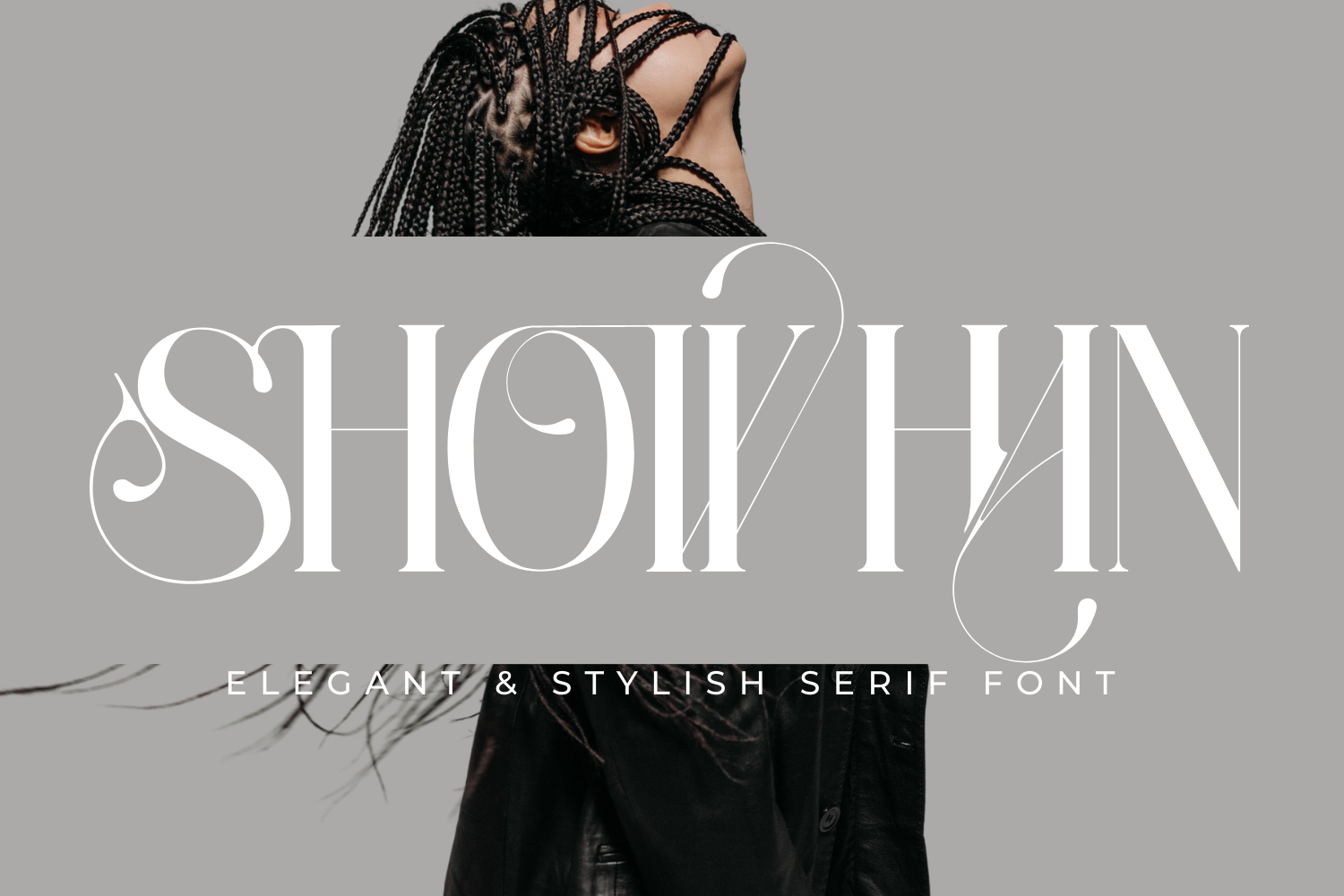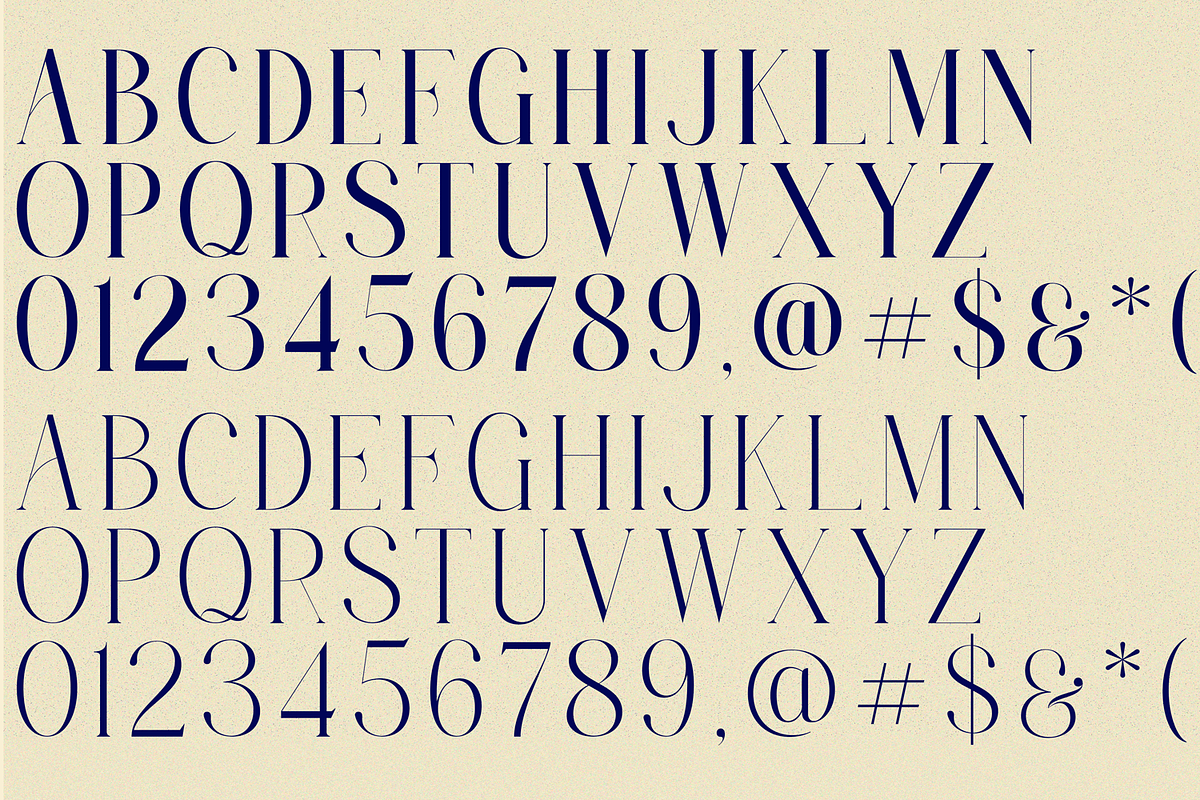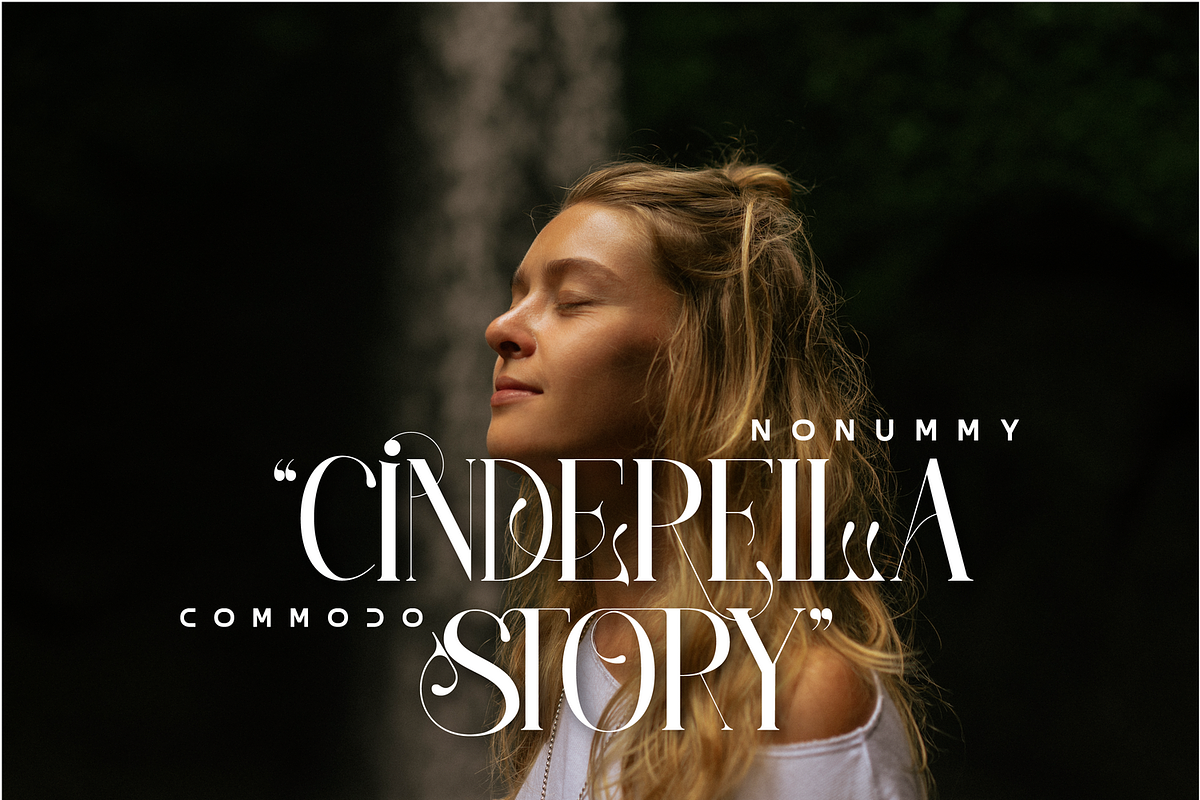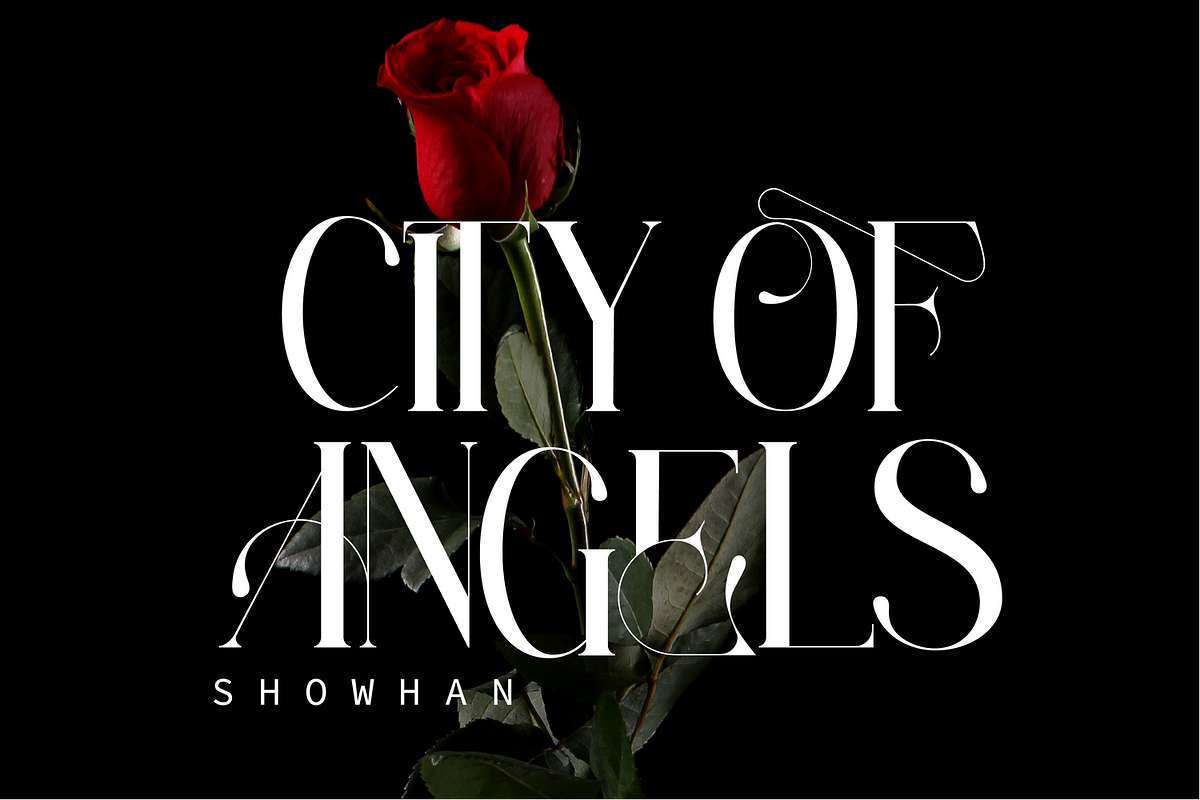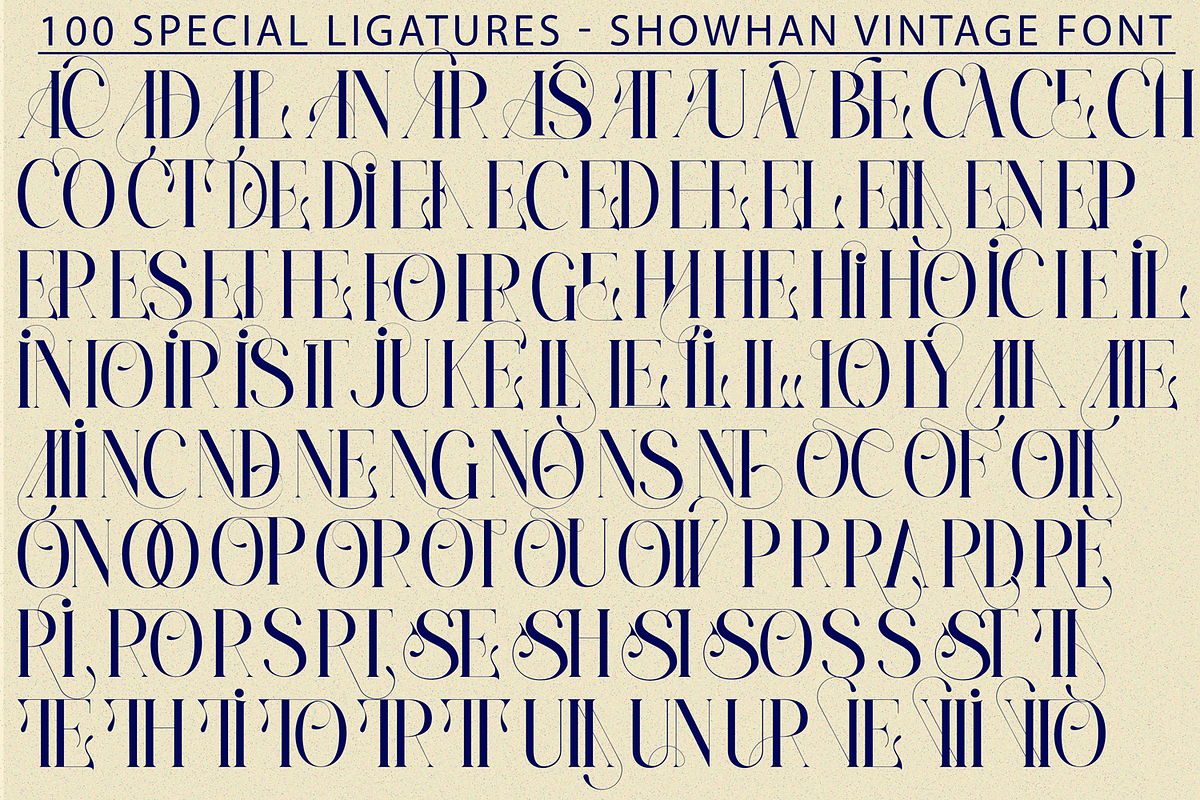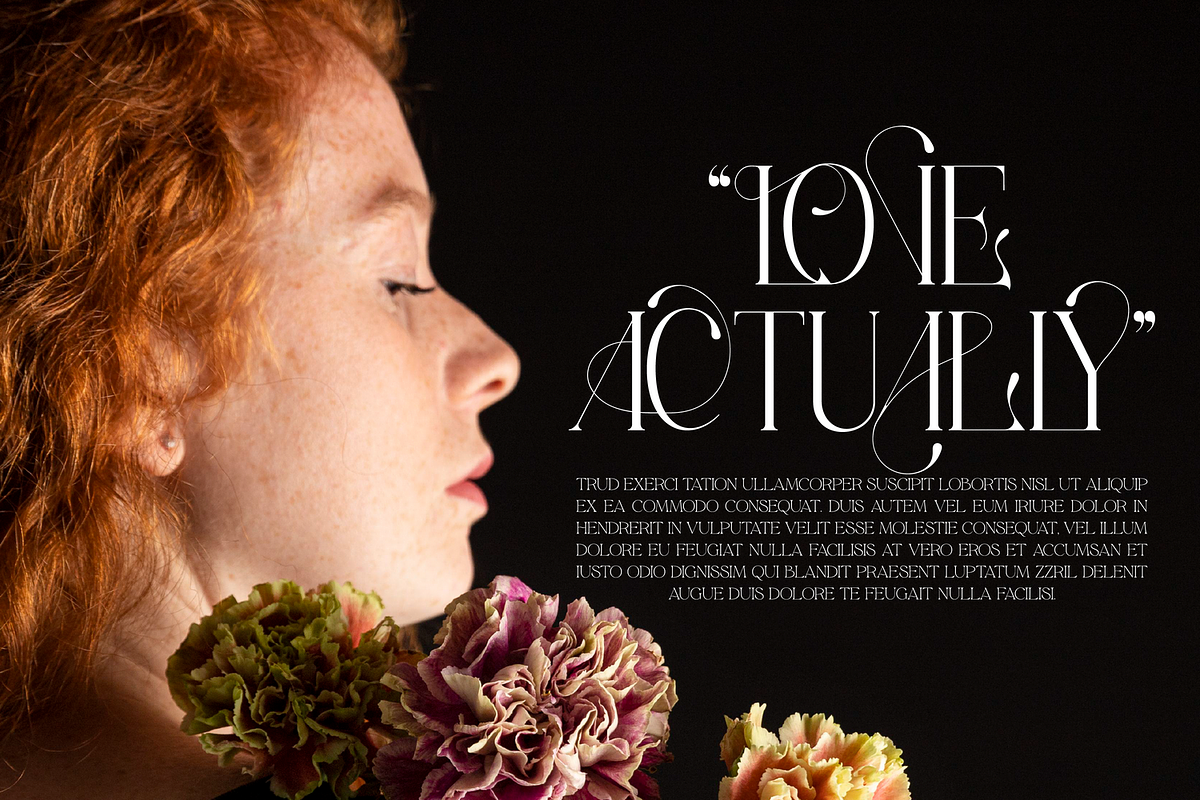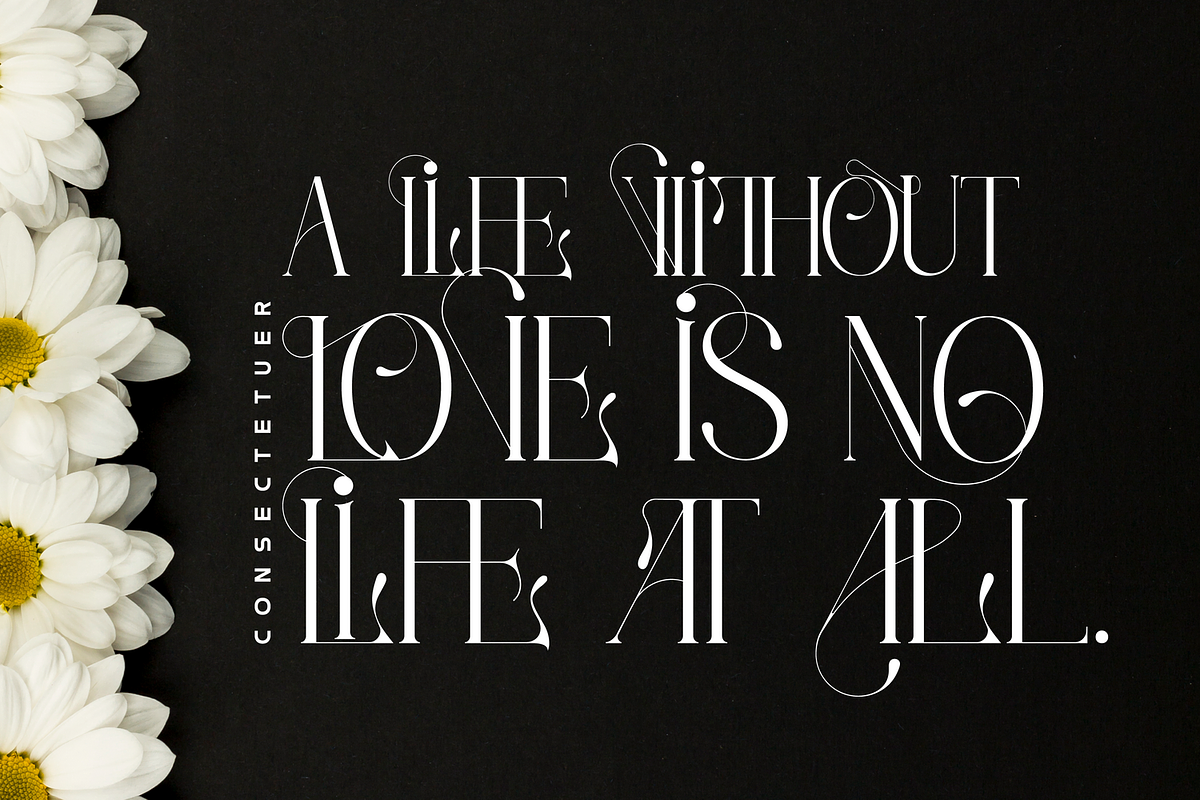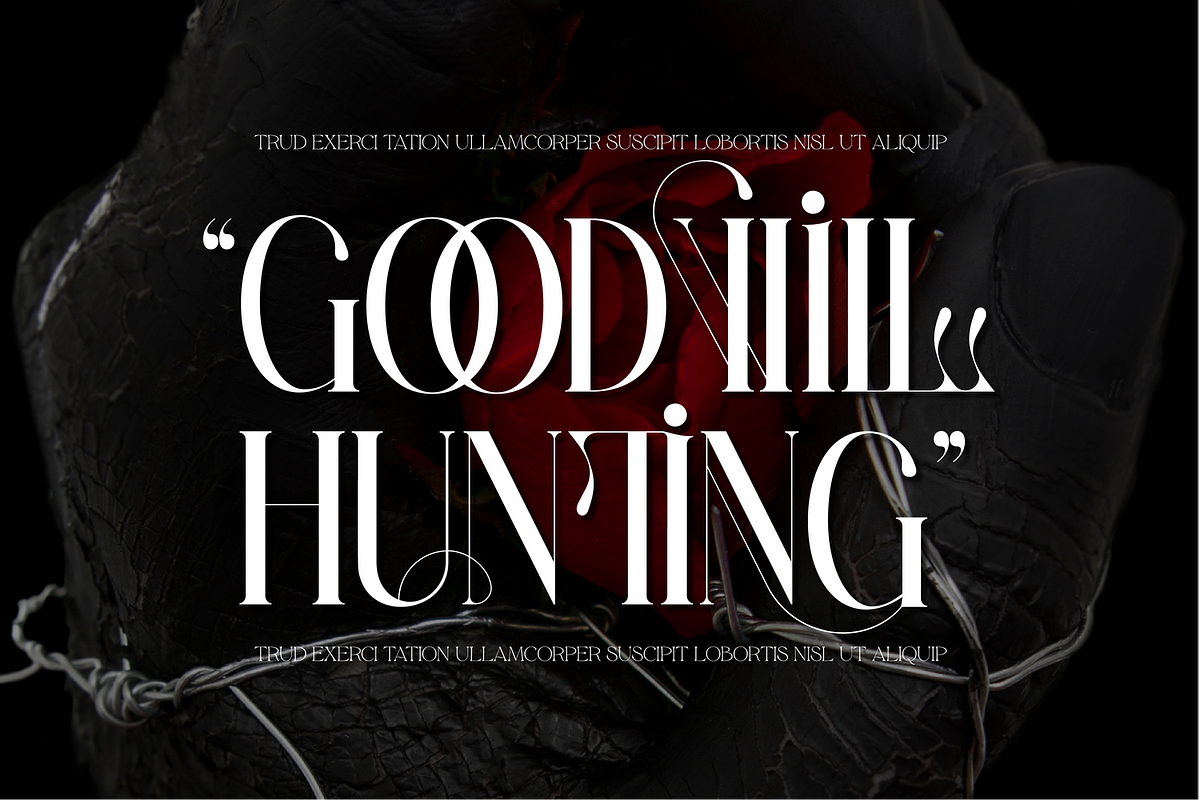
Showhan Vintage Font
Showhan Vintage Font is a modern and classy serif font that embodies timeless elegance and luxurious appeal. With its aesthetic charm and chic sophistication, it's adds a touch of nostalgia to your designs. Very suitable for logo, headline, tittle, and the other various formal forms such as invitations, labels, logos, magazines, books, greeting / wedding cards, packaging, fashion, make up, stationery, novels, labels or any type of advertising purpose.
Showhan was built with OpenType features and includes 100 ligatures, alternate, numbers, punctuation, and it also supports other languages.
AC AD AL AN AR AS AT AU AV BE CA CE CH CO CT DE DI EA EC ED EE EL EM EN EP ER ES ET FE FO FR GE HA HE HI HO IE IC IL IN IO IR IS IT JU KE LA LE LI LL LO LY MA ME MI NC ND NE NG NO NT NS OC OF OM ON OO OP OR OT OU OW PA PR RA RD RE RI RO RS RT SE SH SI SO SS ST TA TE TH TI TO TR TT UM UN UR VE WI WO
- Special Ligatures